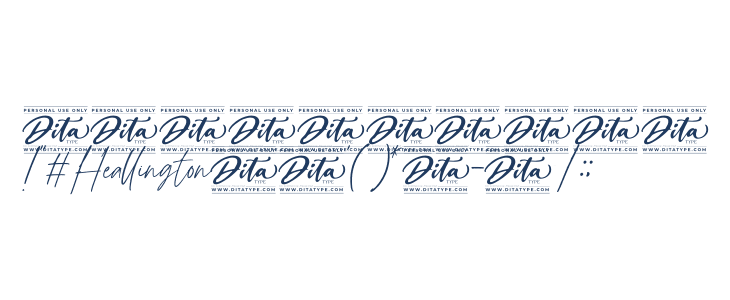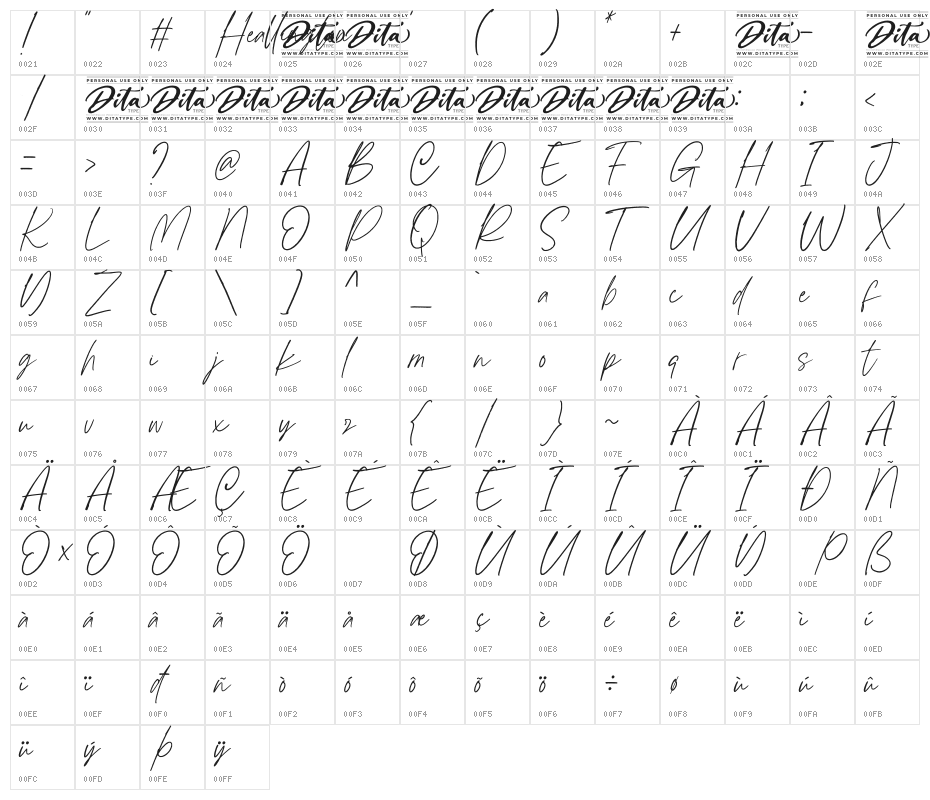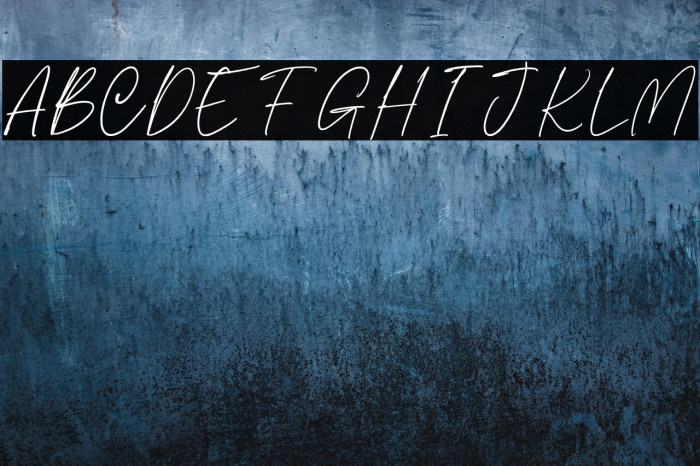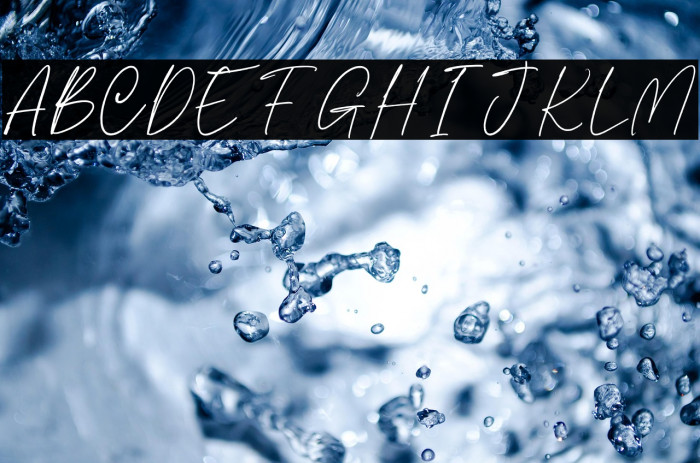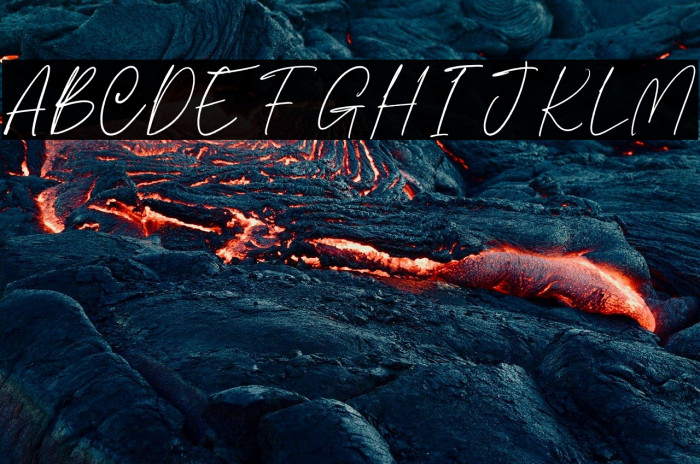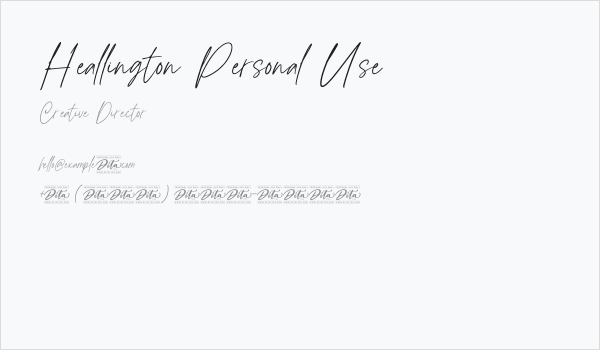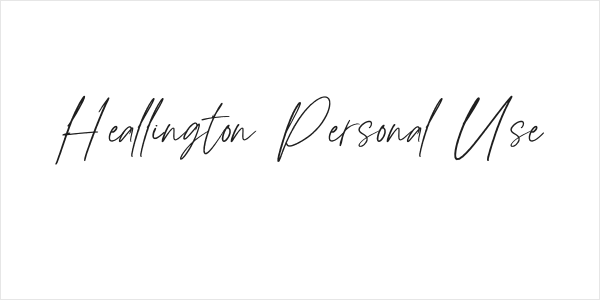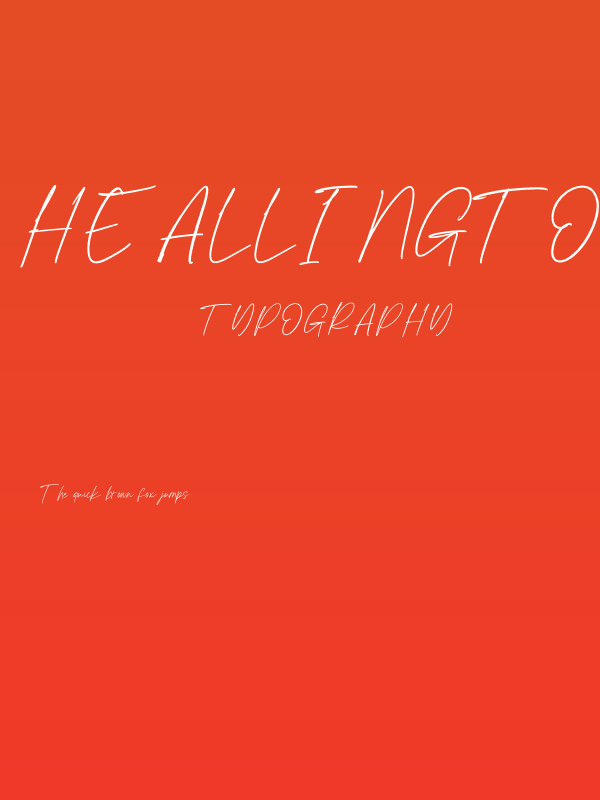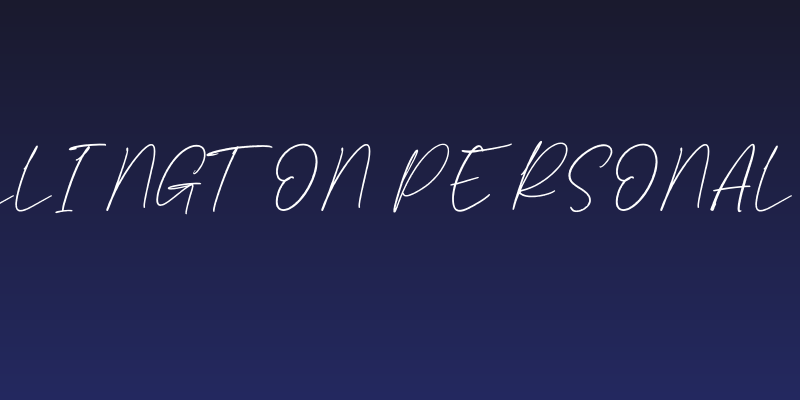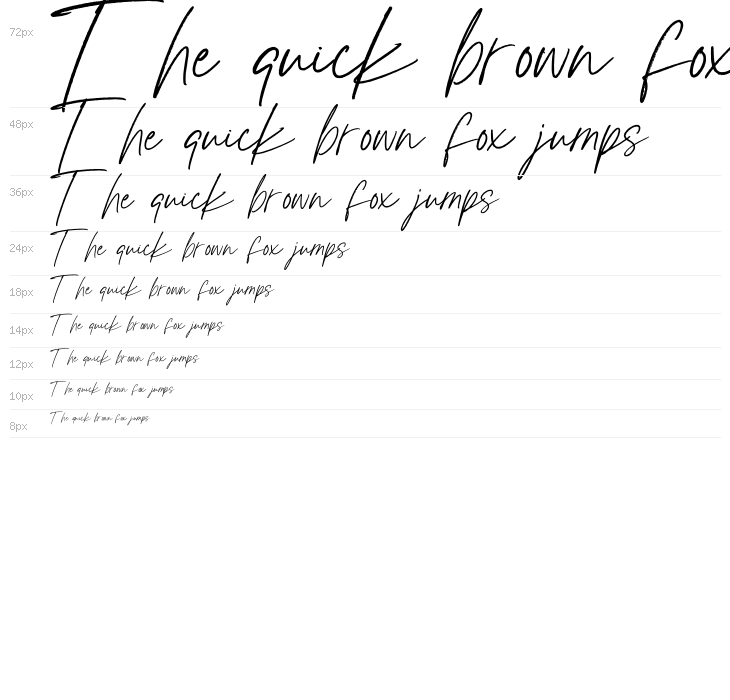
Heallington Personal Use Font
Heallington Personal Use Description
This font features a handwritten style with a casual and flowing appearance. The uppercase letters are tall and slender, with a slight slant that adds a dynamic feel. The lowercase letters are more expressive, with varying stroke thicknesses that give a lively and personal touch. The characters are connected in a cursive manner, enhancing the handwritten aesthetic. The numbers and special characters maintain the same fluidity, ensuring consistency across the font. Overall, it exudes a sense of elegance and informality, making it suitable for creative and personal projects.
| Overall Style | Casual, Elegant |
| Use Case | Logos, Invitations, Personal Branding |
| Proposed Projects | Ideal for greeting cards, invitations, personal branding, and creative projects requiring a personal touch. |